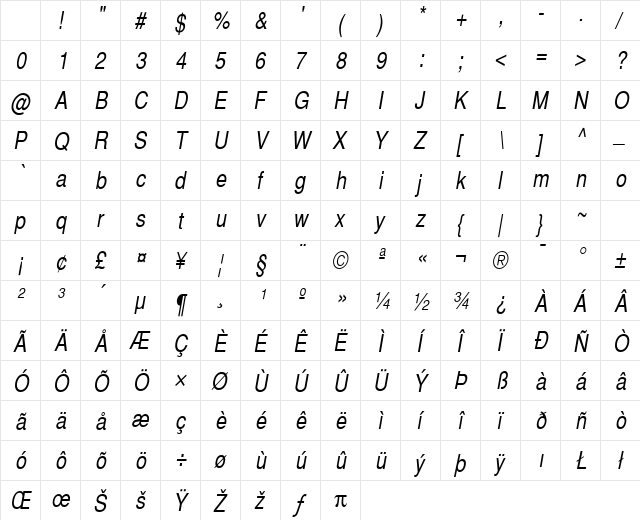
Complete HeaveneticaNarrowSH Oblique glyph index. Displaying only characters natively supported by HeaveneticaNarrowSH Oblique font.
HeaveneticaNarrowSH is a composed and adaptable typeface that performs quietly and consistently across a wide range of design contexts. The slanted form adds forward momentum and visual energy. Its narrow stance lets it pack a punch even in space-constrained designs.